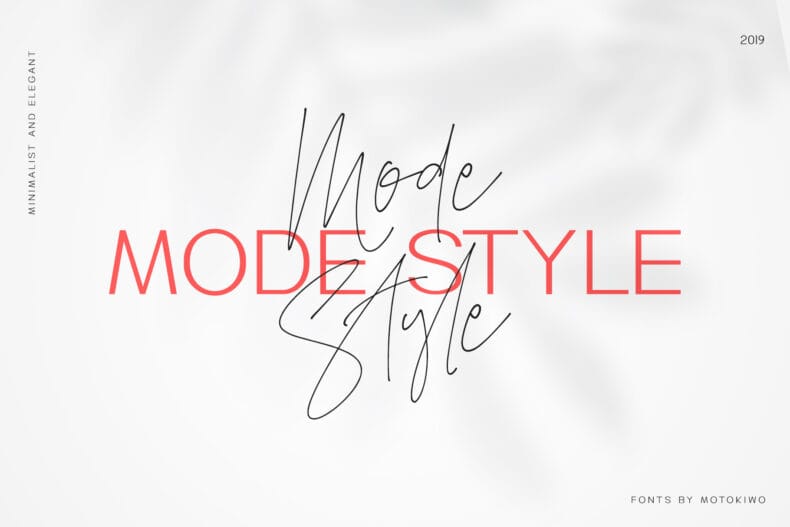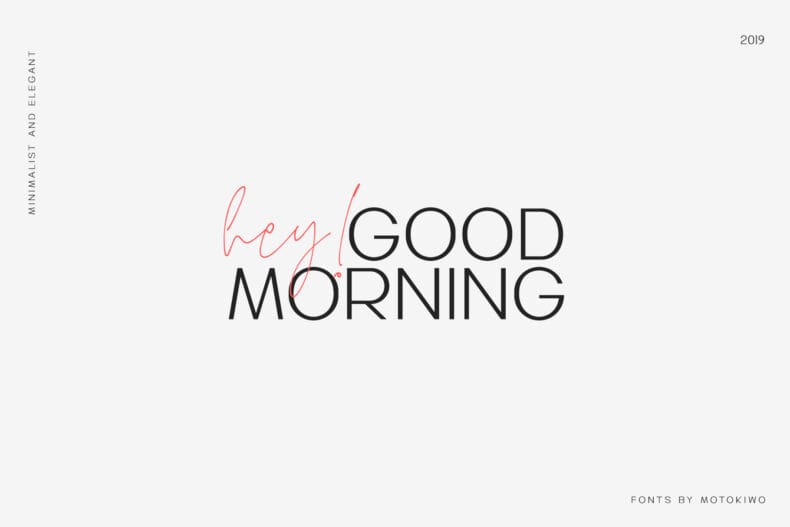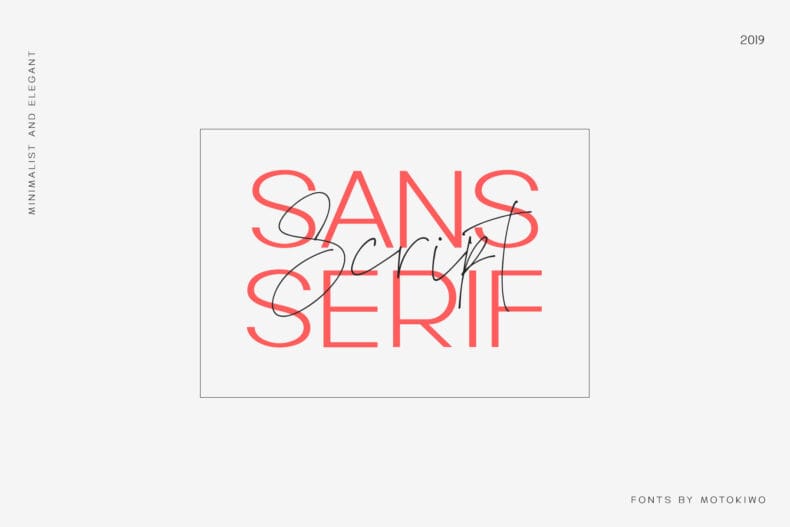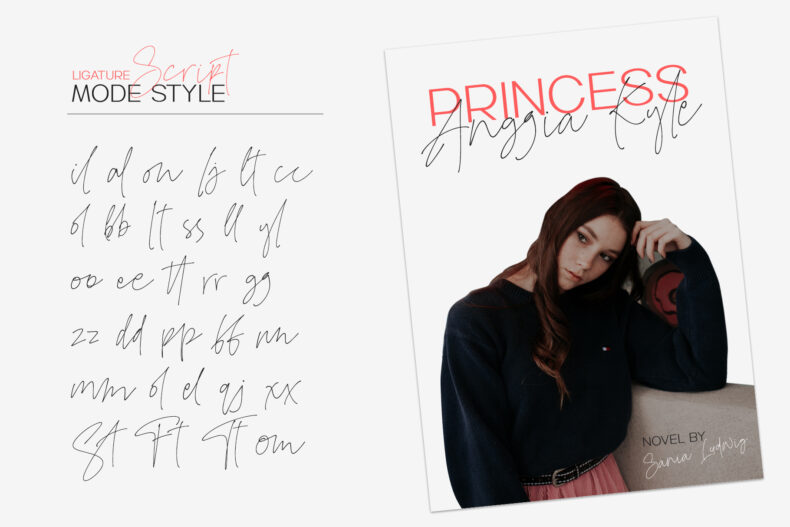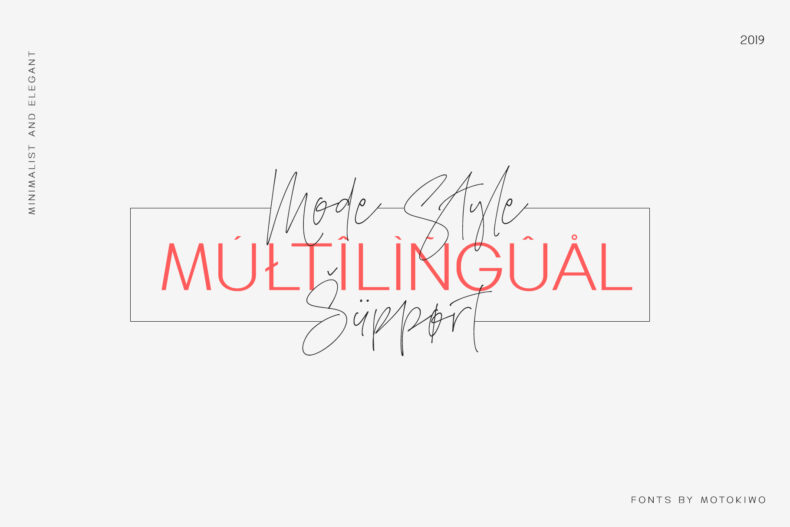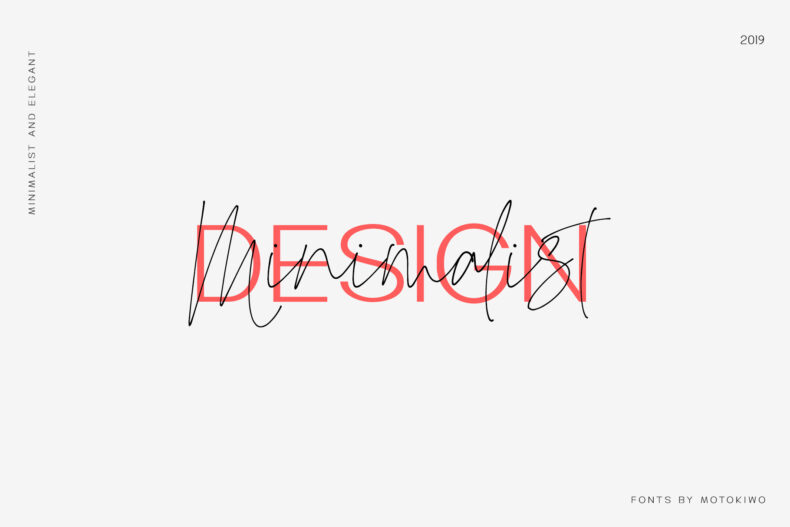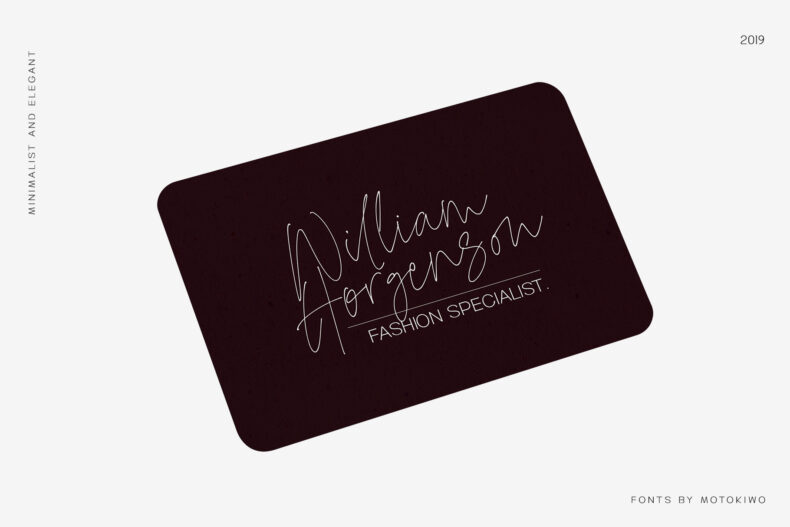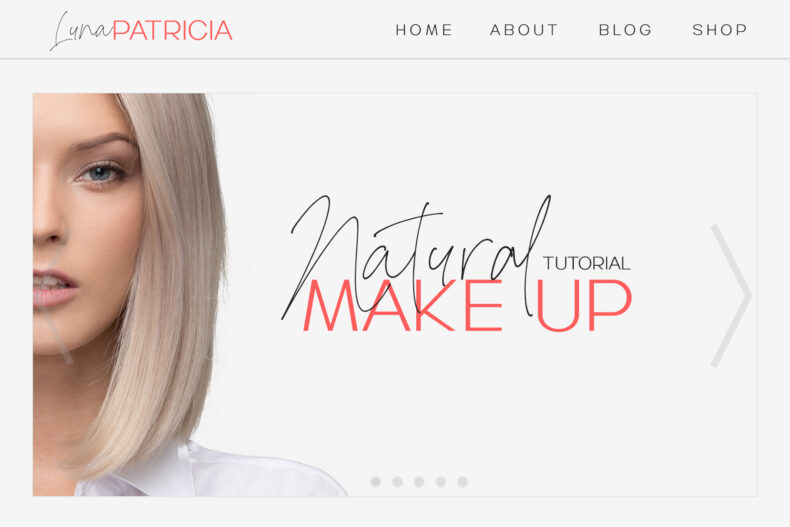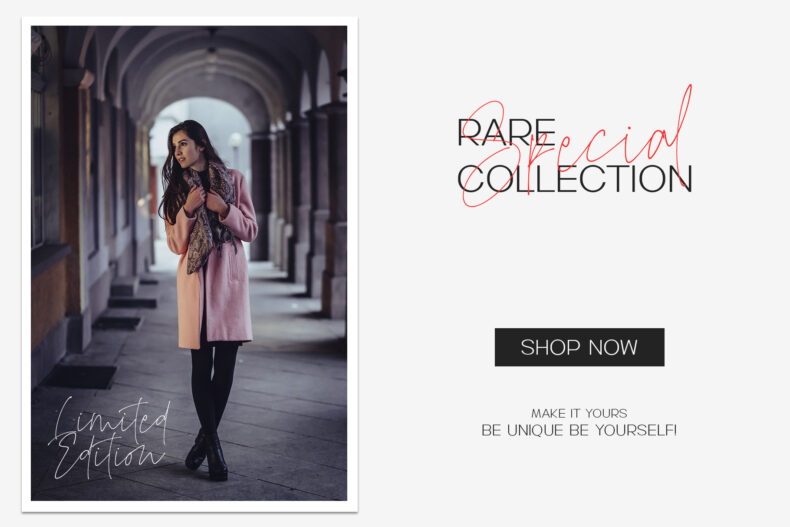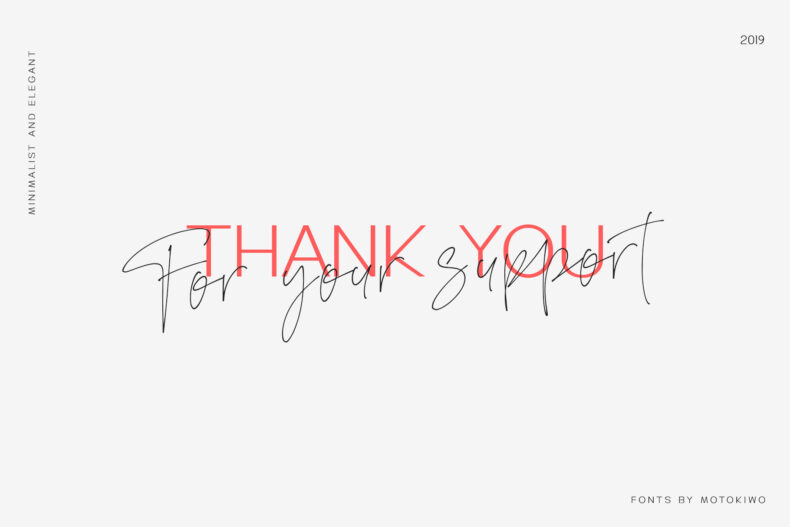
Mode Style pairs an all-caps sans serif with a thin handwritten script. The duo offers contrasting voices for fashion-led branding and composed display layouts.
Mode Style Sans uses medium-width capitals for a structured foundation, while Mode Style Script adds a natural pen-stroke accent. Try the sans serif for the main brand name and the script for a personal note, or reverse their roles to change the emphasis.
The sans includes punctuation and multilingual characters. The script includes ligatures, multilingual characters, and PUA encoding. Use the pair to explore a coordinated hierarchy in a logo presentation, label, or short promotional layout.